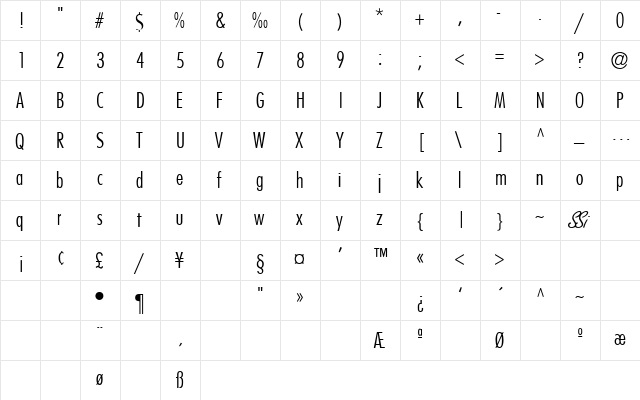
Kudos Light Condensed SSi Extra Light Condensed Font Preview
Design Context for Kudos Light Condensed SSi Typeface
Kudos Light Condensed SSi offers clean, dependable letterforms without strong stylistic allegiance, making it a practical choice for designers who need flexibility. The delicate stroke weight brings airiness and refinement to layouts. The condensed width makes it efficient for tight spaces without sacrificing legibility.